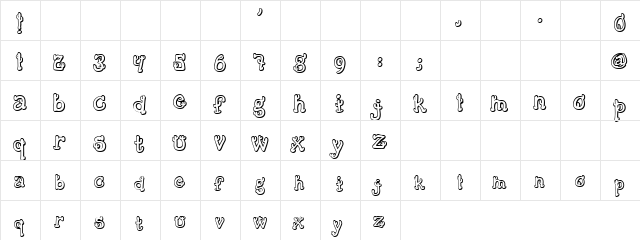
Me first Shadow Regular
Design Context for Me first Shadow Typeface
Me first Shadow brings ornamental detail and strong personality to headlines and identities, where visual impact matters more than quiet functionality.
Font Pairing: Pair with a clean neutral sans-serif for body copy to let Me first Shadow's character lead without overwhelming the composition.
Pro Tip: Use Me first Shadow exclusively at display sizes — it was designed to be seen, not read at length. Let a neutral companion handle body copy.